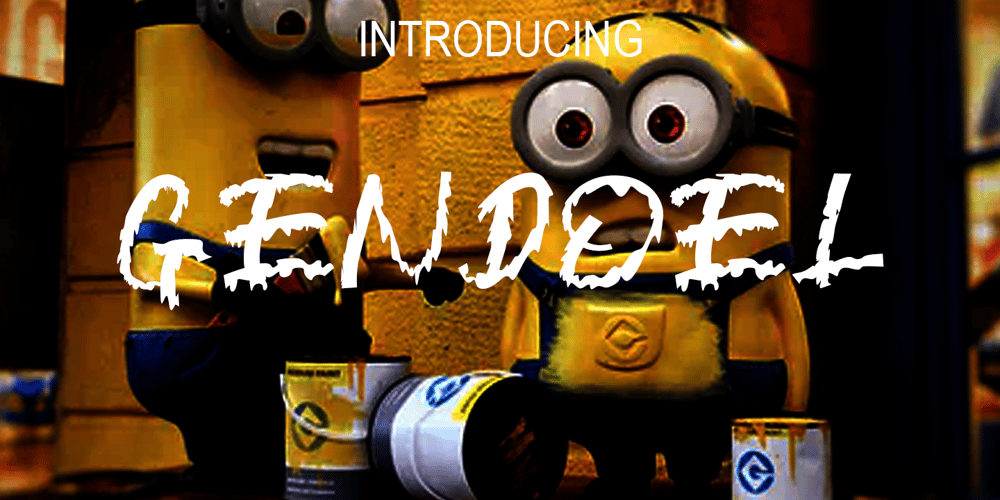
Gendoel
Gendoel font
Gendoel Font Family was designed by Wahyu Edhi Widodo and published by Gatra Std. Gendoel contains 1 styles and family package options. Introducing a cute handwriting “GENDOEL” Handwritten Typeface Font!If you are needing a touch of casual modern display for your designs, this font was created for you!What’s Included: Uppercase and Lowercase Number and Punctuation Support Language Standart Ligature This font works best in a program that supports OpenType features such as Adobe Indesign, Adobe Illustrator CC and CS, or Adobe Photoshop CC and CS also CorelDrawMore Questions? Here are some (potential) answers! Do not to resell this font in any way. Multilingual Support is included for Western European Languages Have a Wonderful Day,Gatra Std